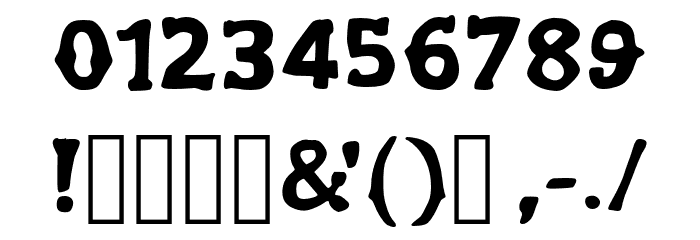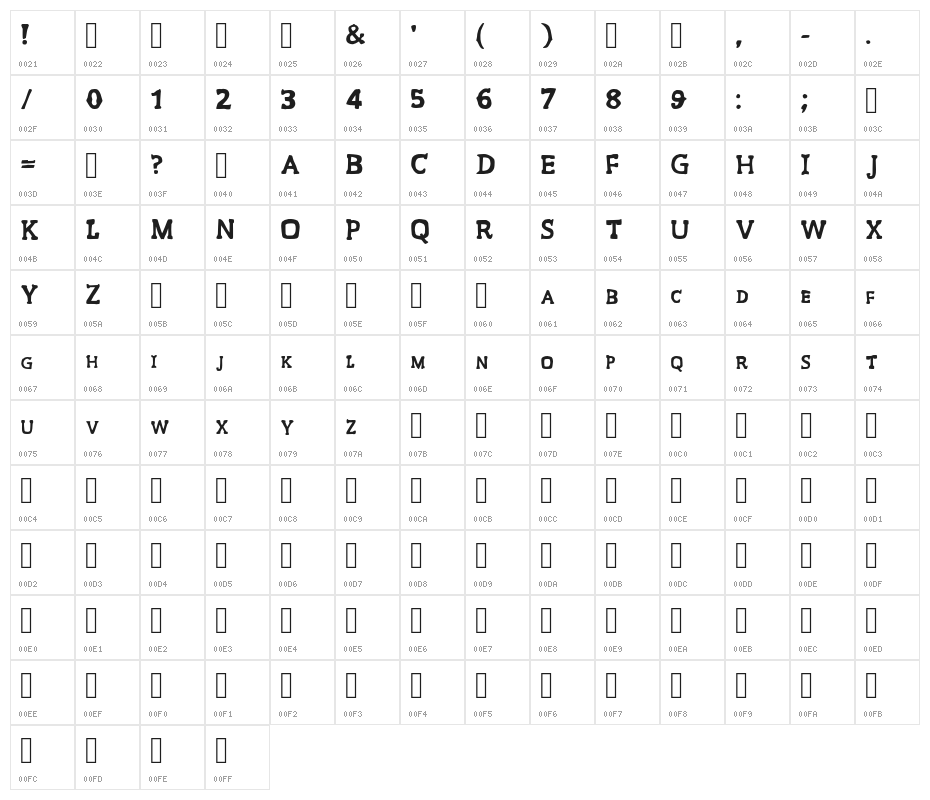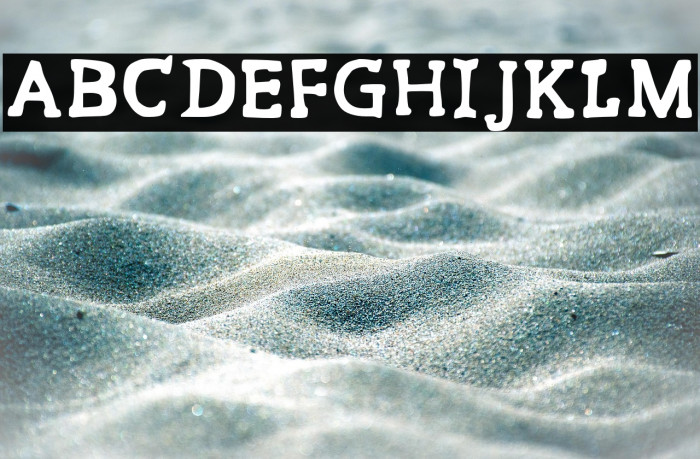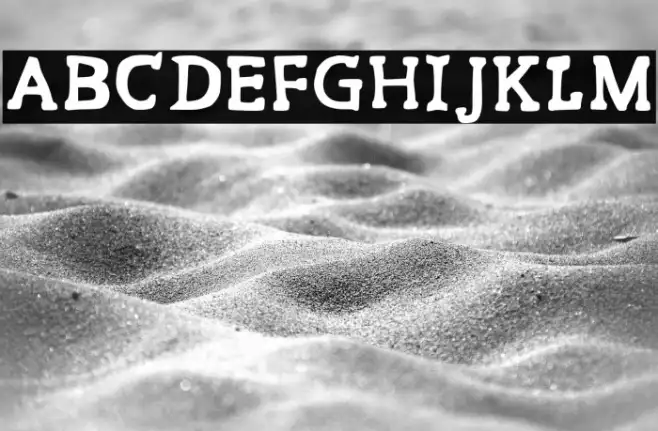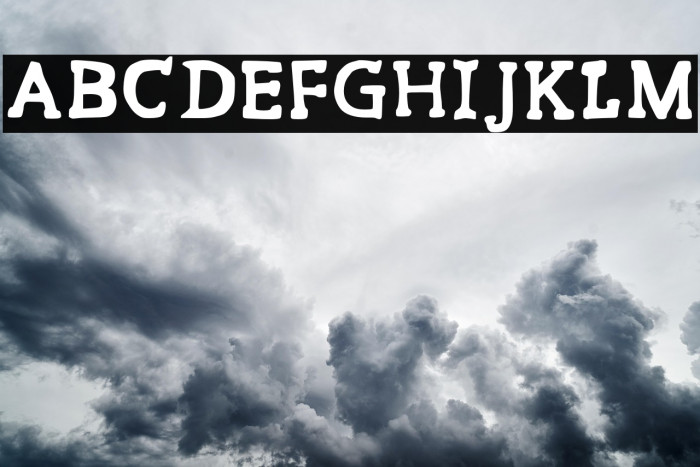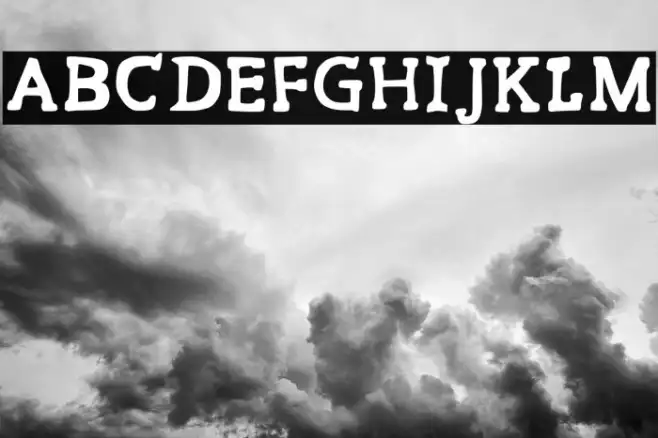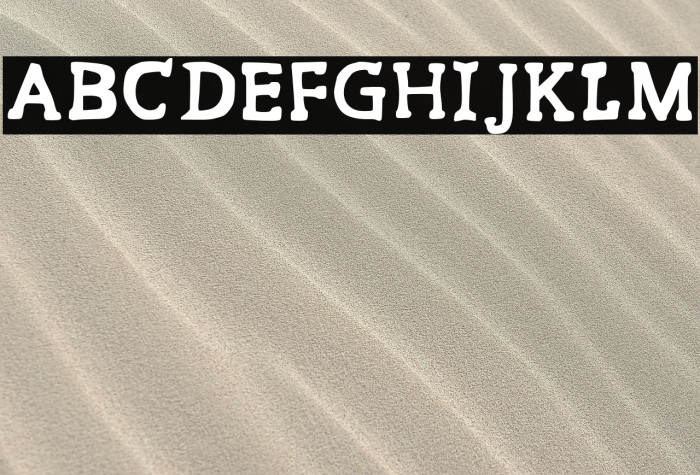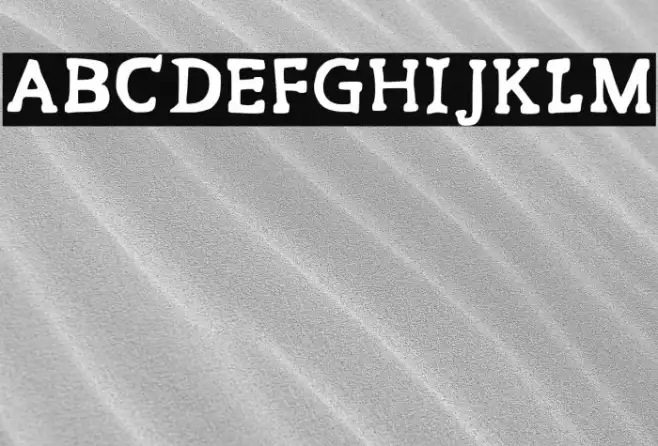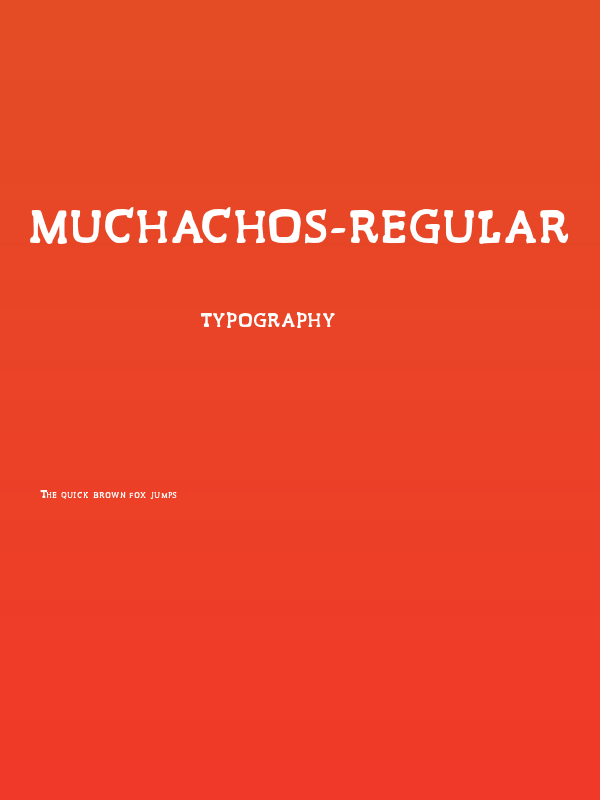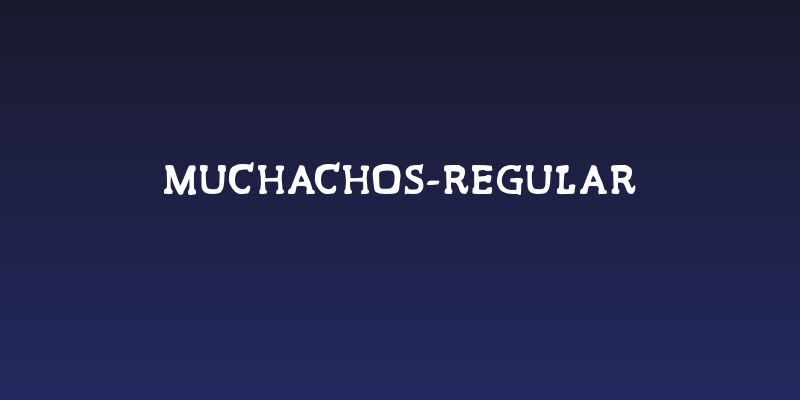
Muchachos-Regular Font
Muchachos-Regular Description
This font features a bold and playful design with a slightly irregular and hand-drawn appearance. The characters are thick and rounded, giving them a friendly and approachable feel. The uppercase letters are bold and prominent, while the lowercase letters maintain a consistent style with slightly less weight. The numbers are equally bold, ensuring visibility and readability. Special characters are designed with the same playful style, adding to the font's overall cohesive look. The font's unique style makes it suitable for projects that require a touch of whimsy and creativity.
| Overall Style | Playful, Creative |